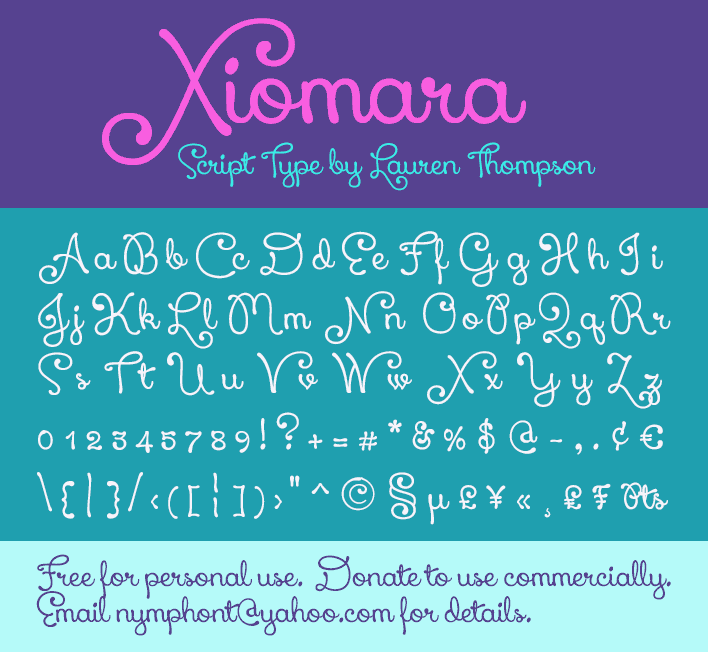
Free Xiomara Font
Today we're glad to feature this free xiomara font. This is a downloadable free typeface file brought to you by Font Space. This is absolutely fancy font so you can easily make world-class designs.